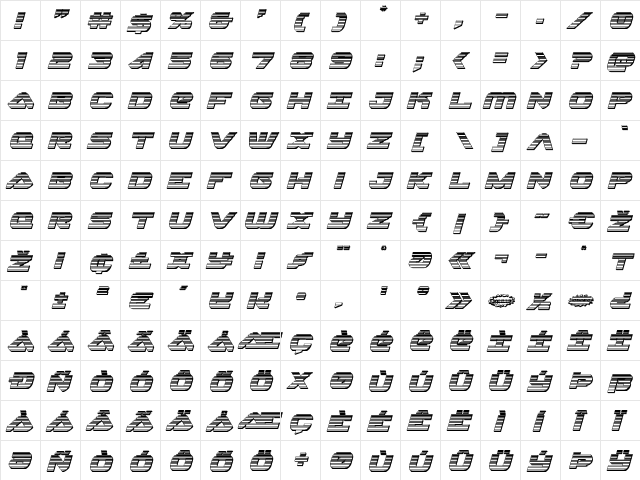
Skyhawk Chrome Italic Italic
Design Context for Skyhawk Chrome Italic Typeface
Skyhawk Chrome Italic is a composed and adaptable typeface that performs quietly and consistently across a wide range of design contexts. The dynamic lean of this cut emphasises speed and emphasis in any layout.
Pro Tip: Use Skyhawk Chrome Italic for emphasis, pull quotes, and subheadings where its slanted energy can add rhythm to the layout.